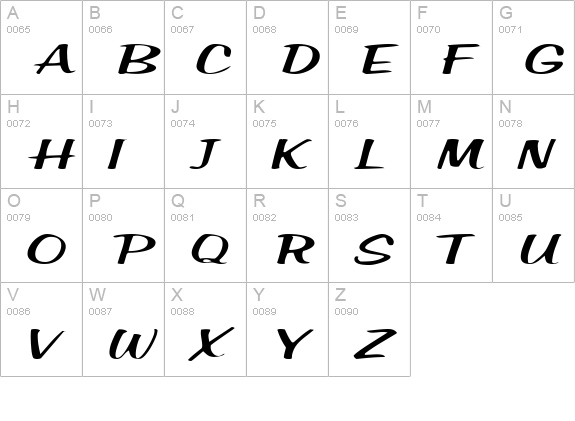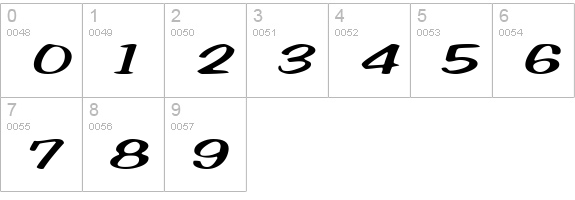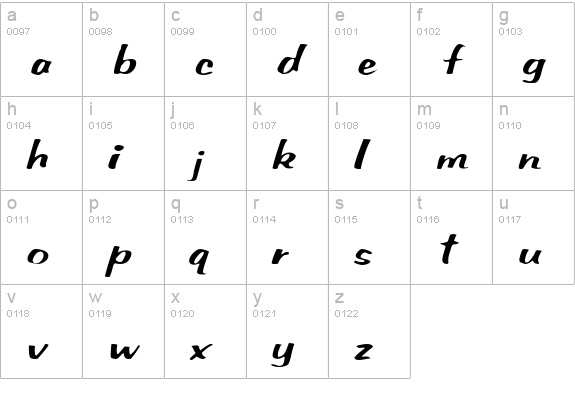
SeldaneScript Italic Font Details
SeldaneScript Italic is a distinctive, italic variant in the SeldaneScript typeface family \xE2\x80\x94 well suited to design and typography projects.
Introducing SeldaneScript Italic, a stunning and expressive font that effortlessly captures the essence of elegance and sophistication. With its gracefully slanted letterforms, this font exudes a sense of fluidity and charm, making it the perfect choice for adding a touch of class to any design project. SeldaneScript Italic is meticulously crafted to bring your words to life, effortlessly transforming them into works of art. Each letter is delicately hand-drawn, ensuring a seamless flow and natural appearance. Its distinctive cursive style is imbued with a sense of timeless beauty, making it ideal for invitations, branding, packaging, and more. What sets SeldaneScript Italic apart is not only its impeccable design, but also its accessibility. We believe that creativity should be free, and that is why we are thrilled to offer this font as a freely available download at FontsMarket.com. Now, you can bring your visions to reality without any restrictions, allowing your imagination to soar. Whether you're a professional designer or an enthusiastic hobbyist, SeldaneScript Italic will inspire and empower you to create remarkable designs that leave a lasting impression. Its versatility lends itself to a wide range of applications, from elegant wedding invitations to sophisticated logos, ensuring that your message is conveyed with the utmost refinement. Download SeldaneScript Italic today from FontsMarket.com and unlock a world of creative possibilities. Let your words dance across the page in a sublime display of style and grace. Embrace the freedom to express yourself and unleash your creativity with this exceptional font.